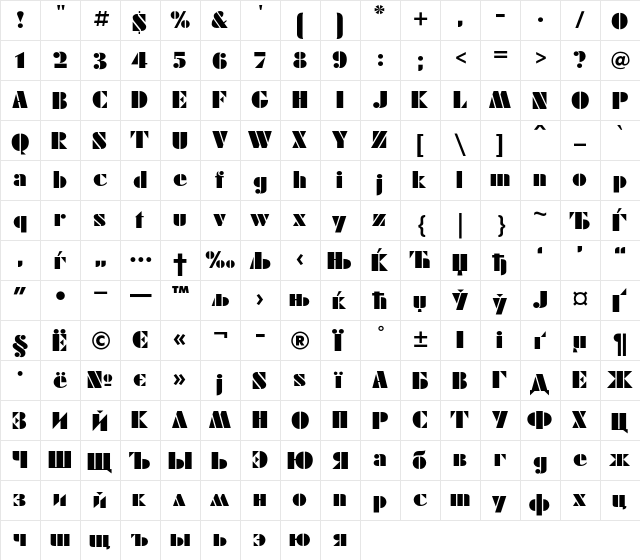
FuturaEugeniaC Regular
Design Context for FuturaEugeniaC Typeface
FuturaEugeniaC channels digital-age aesthetics through its sharp, structured letterforms — ideal for brands that want to signal innovation.
Pro Tip: Use FuturaEugeniaC in combination with a neutral sans for body text. Let it define the brand voice in headlines while keeping reading comfortable elsewhere.